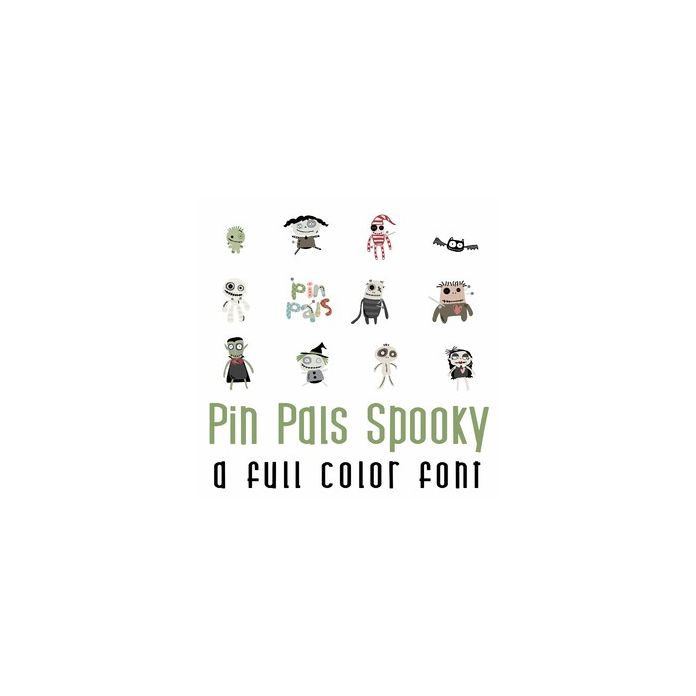
This adorable full-color doodlebat font features 26 adorably spooky pin cushion animals perfect for cards, crafts, decor, planner stickers, scrapbook pages and more!